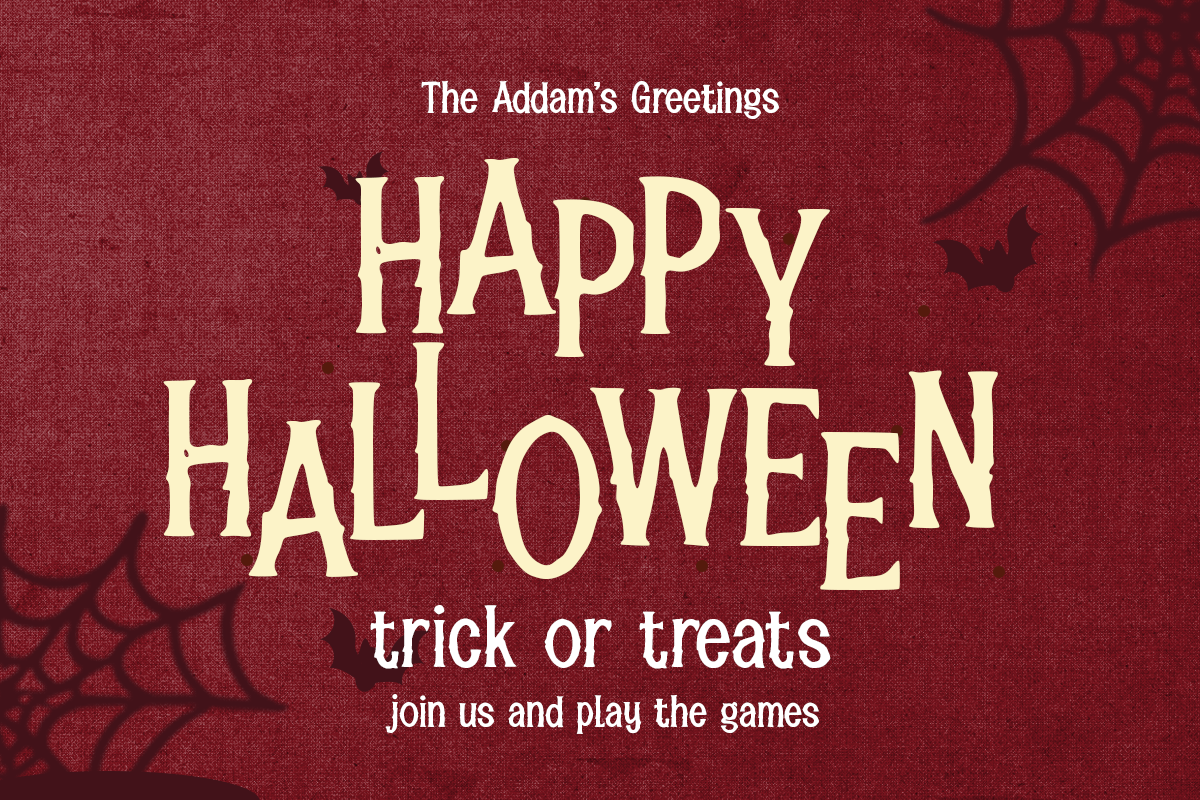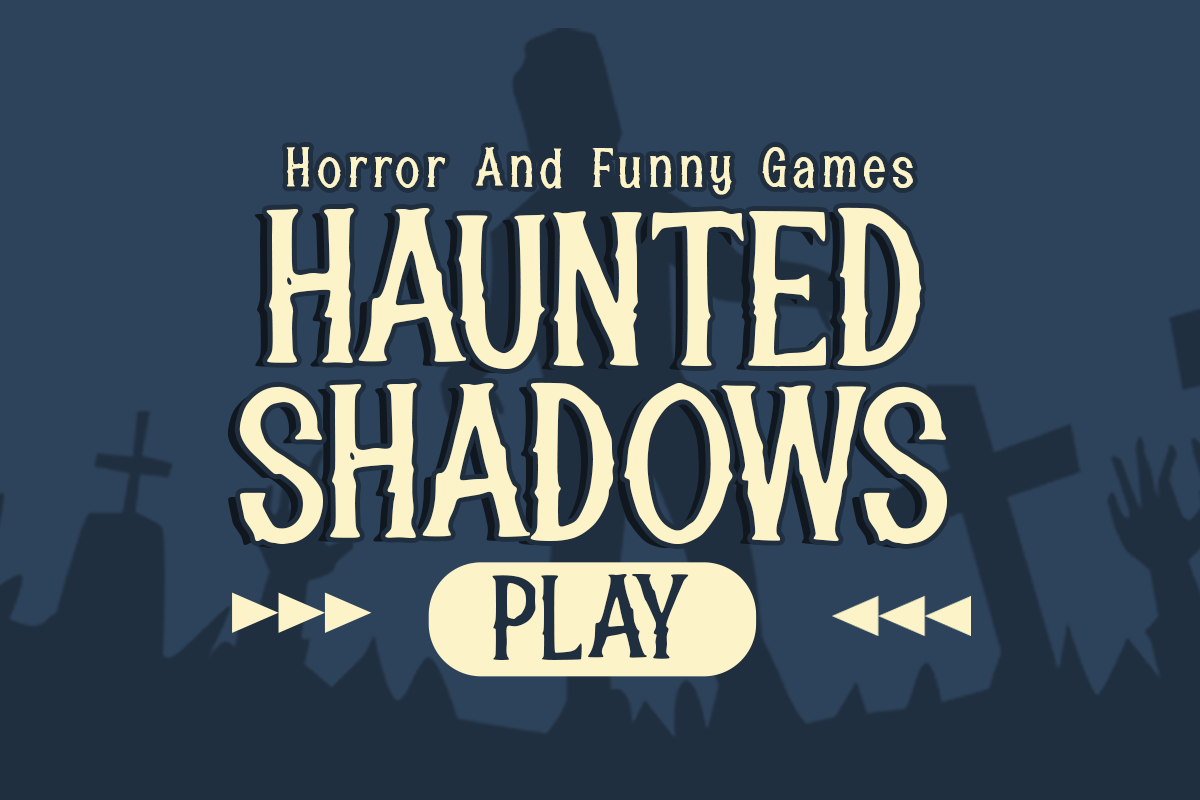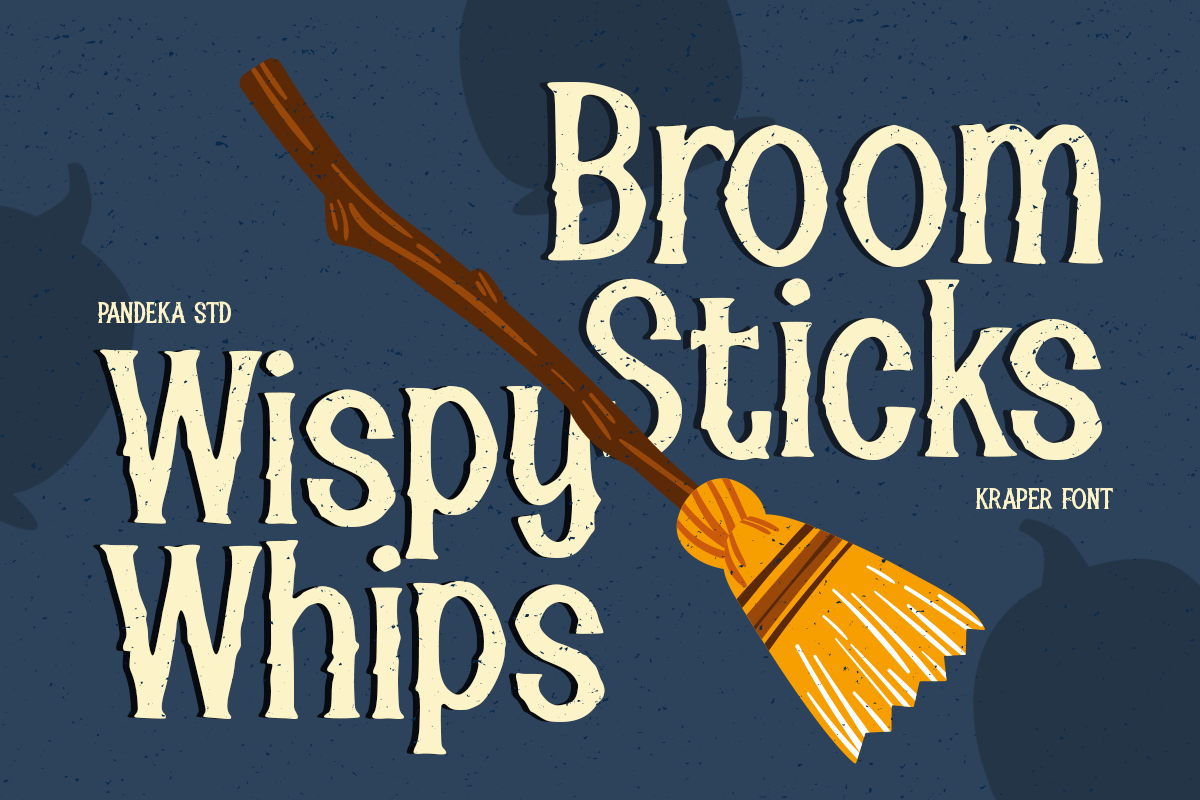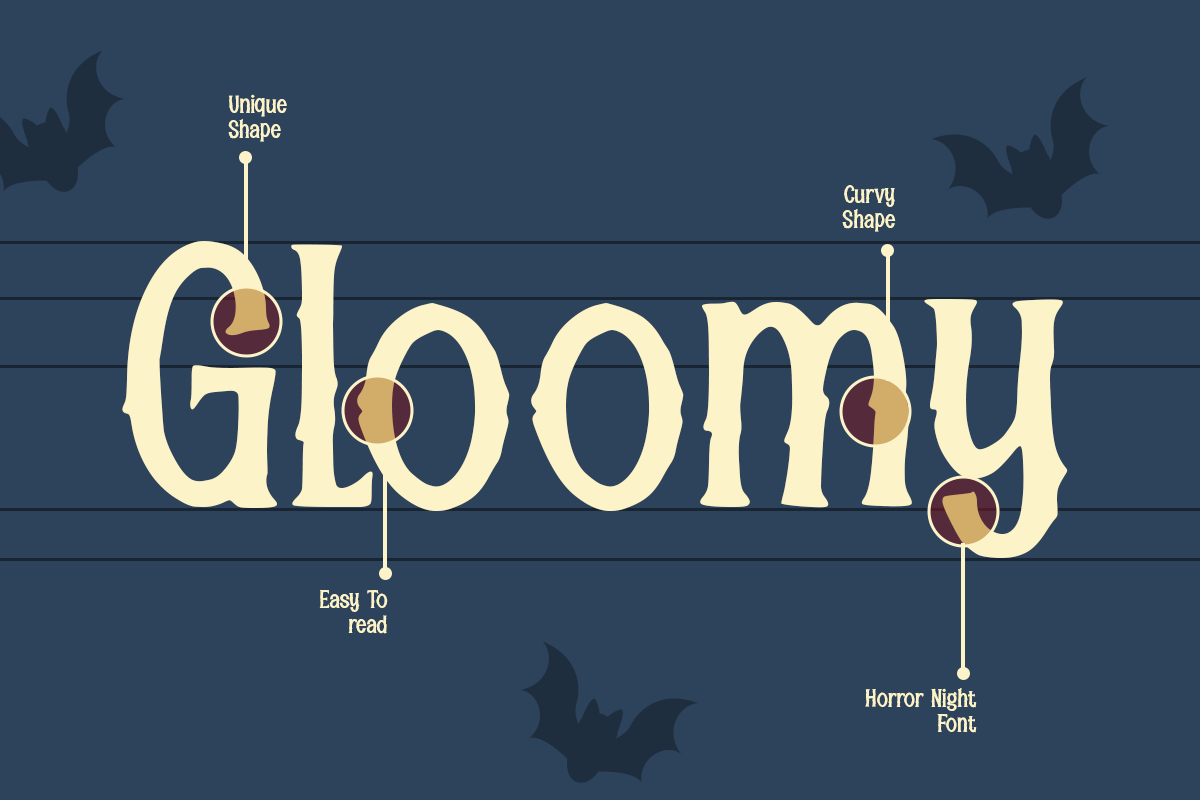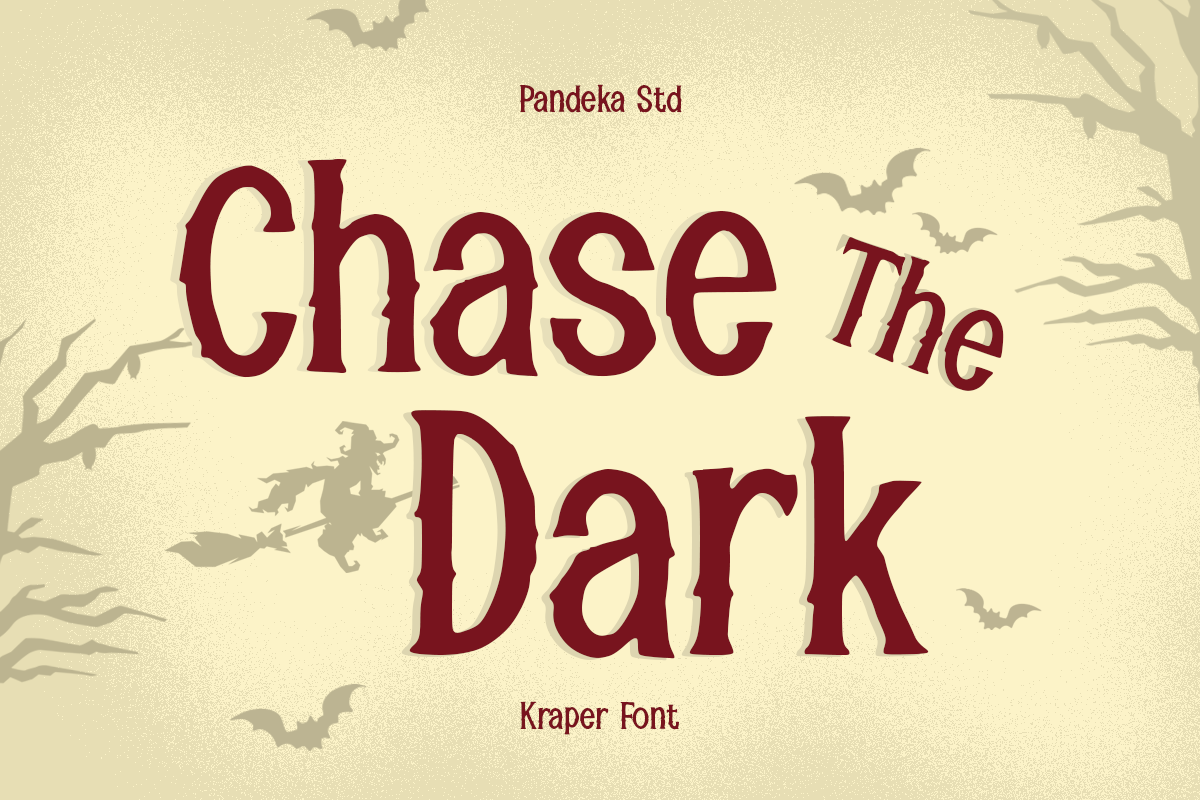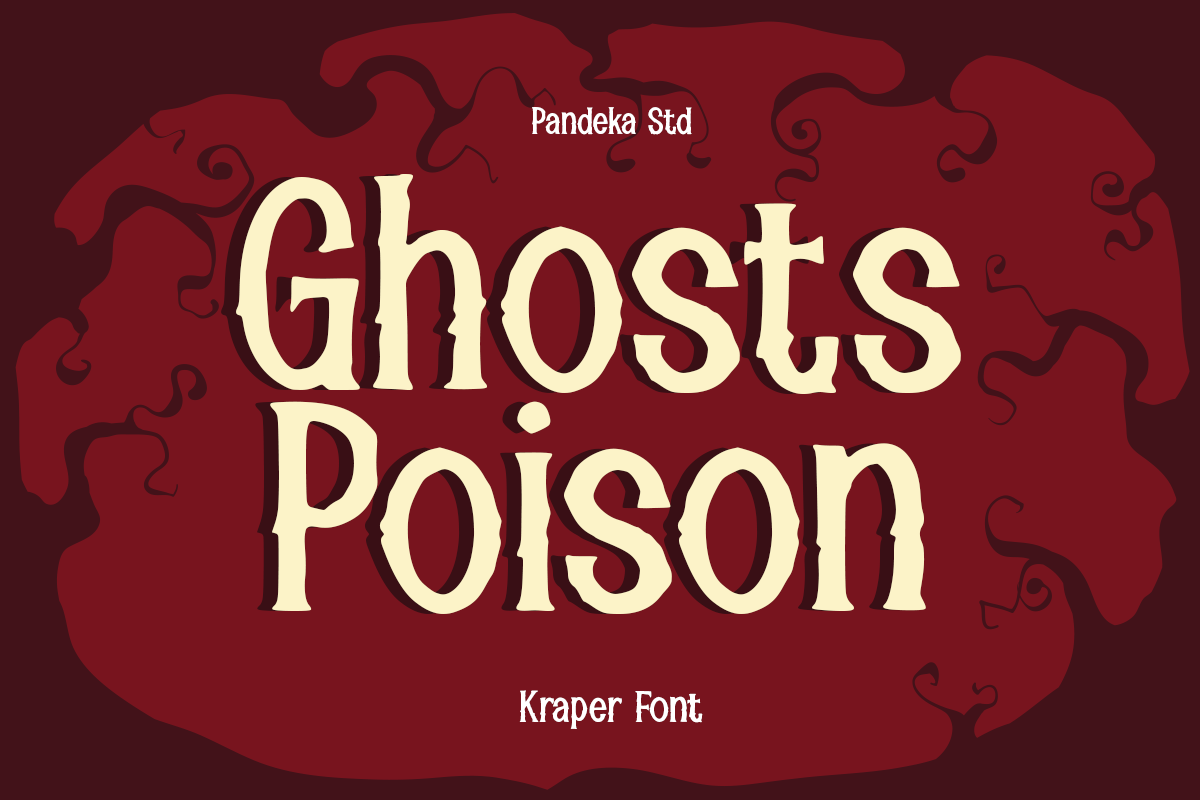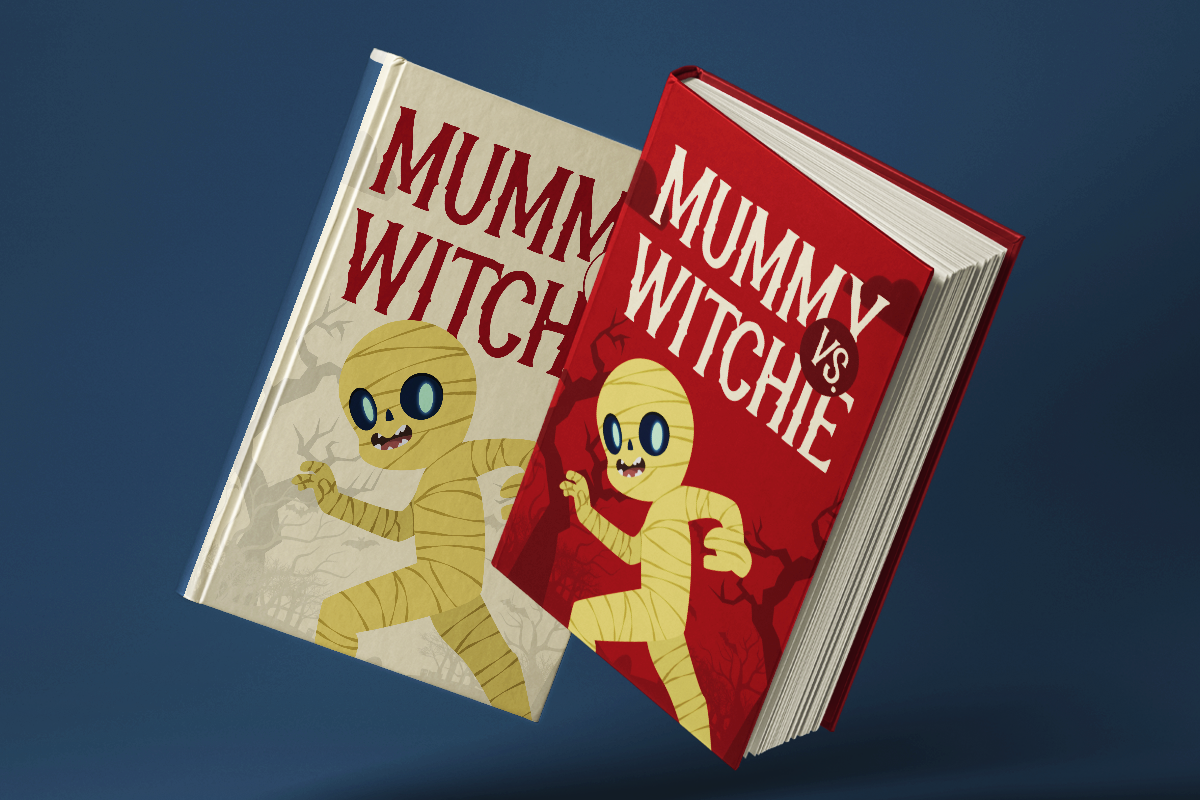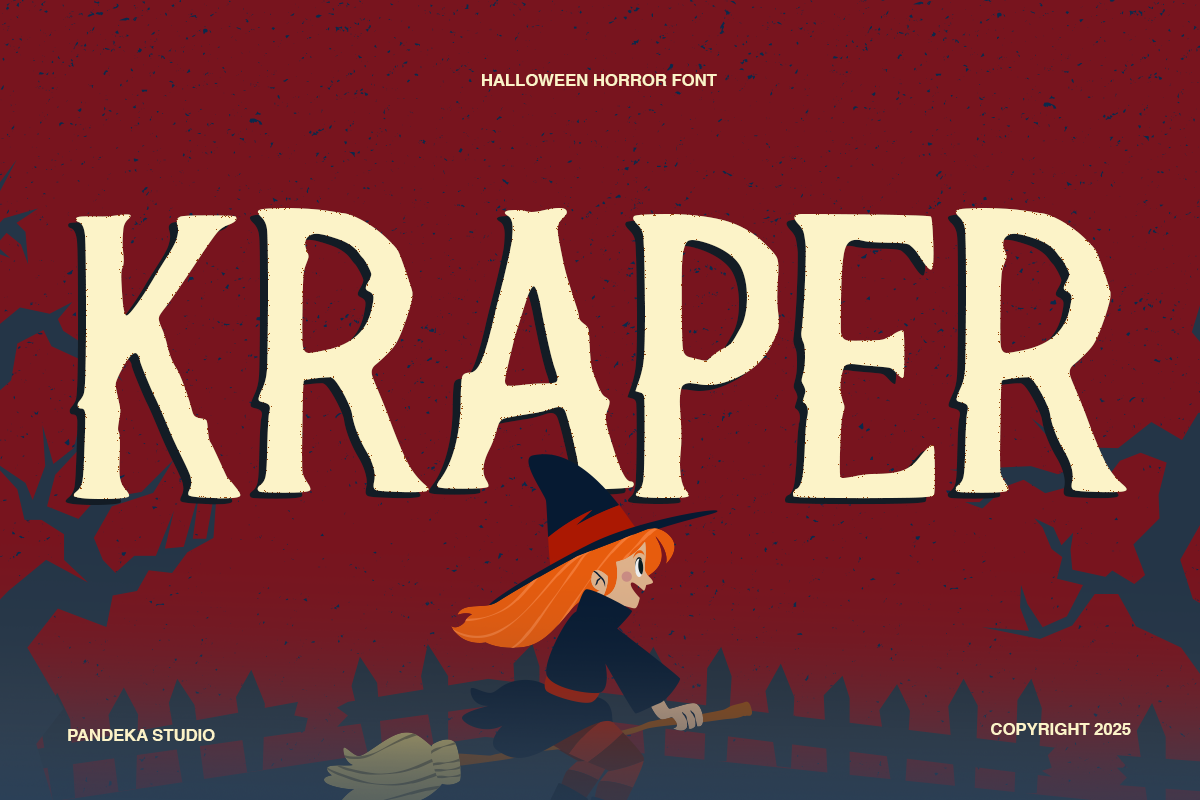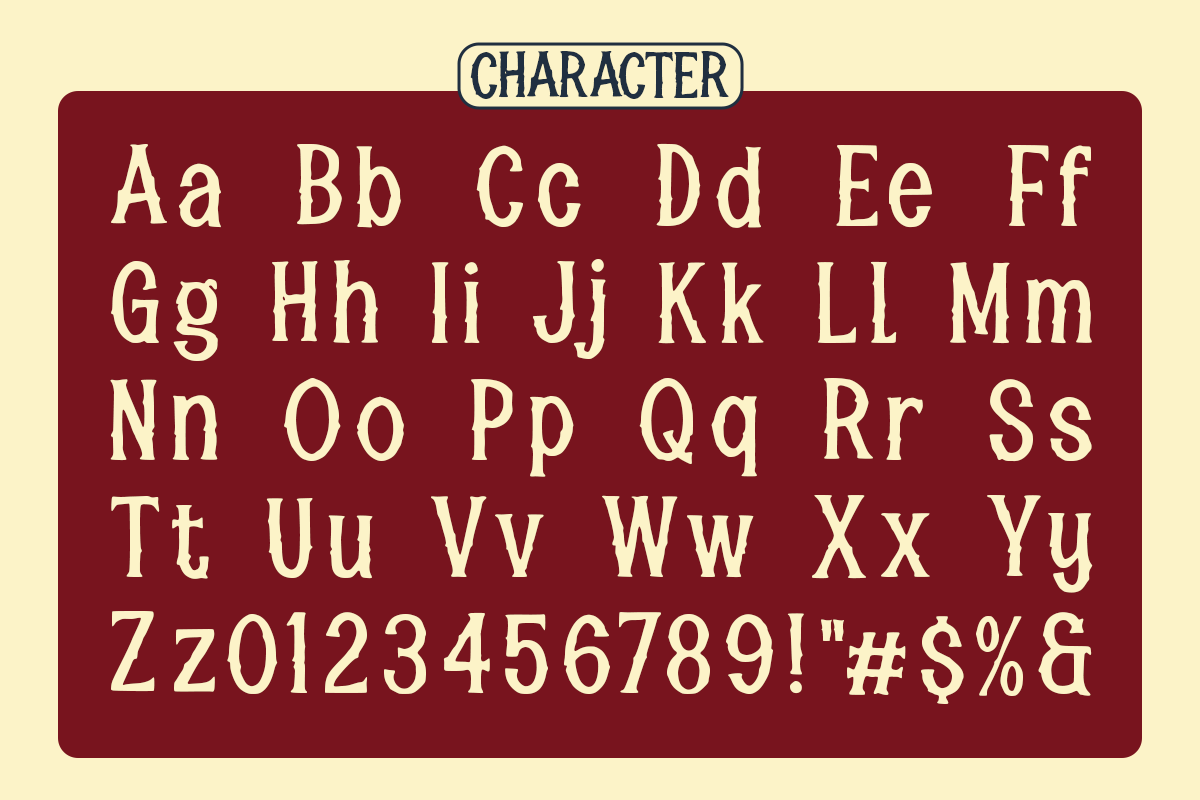
Kraper - Halloween Horror Font
Kraper is a spooky yet fun Halloween horror font designed to bring chills and excitement to your creative projects. Its bold, uneven letterforms capture the eerie atmosphere of haunted nights, ghostly tales, and trick-or-treat adventures — making it the perfect choice for Halloween events, posters, horror movie titles, party invitations, packaging, and dark-themed designs.
Kraper comes in one regular style, with a handcrafted look that combines quirky horror elements and a playful edge. The unique shapes and irregular outlines create a sense of mystery while keeping your typography lively and expressive.
- Full Character Set: Uppercase, lowercase, numbers, symbols, and punctuation
Equipped with uppercase, lowercase, numerals, punctuation, and multilingual support, Kraper helps you design hauntingly beautiful projects with ease and creativity.